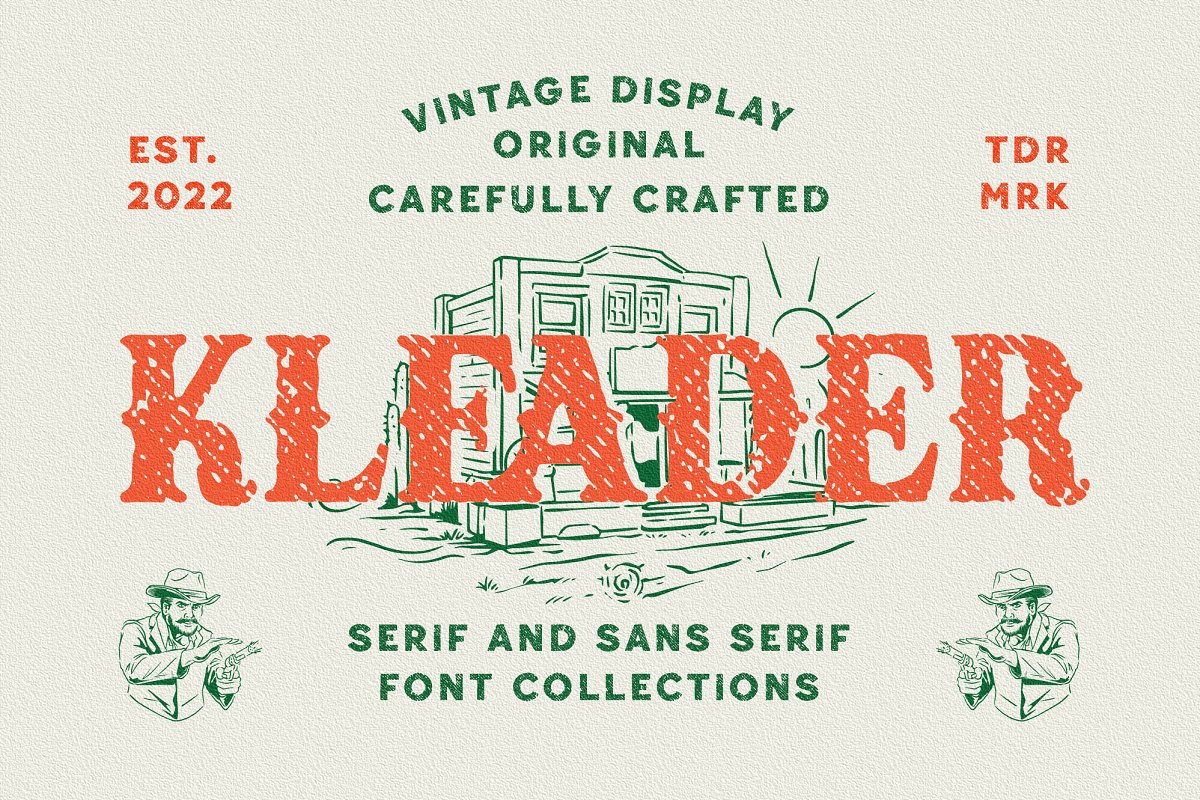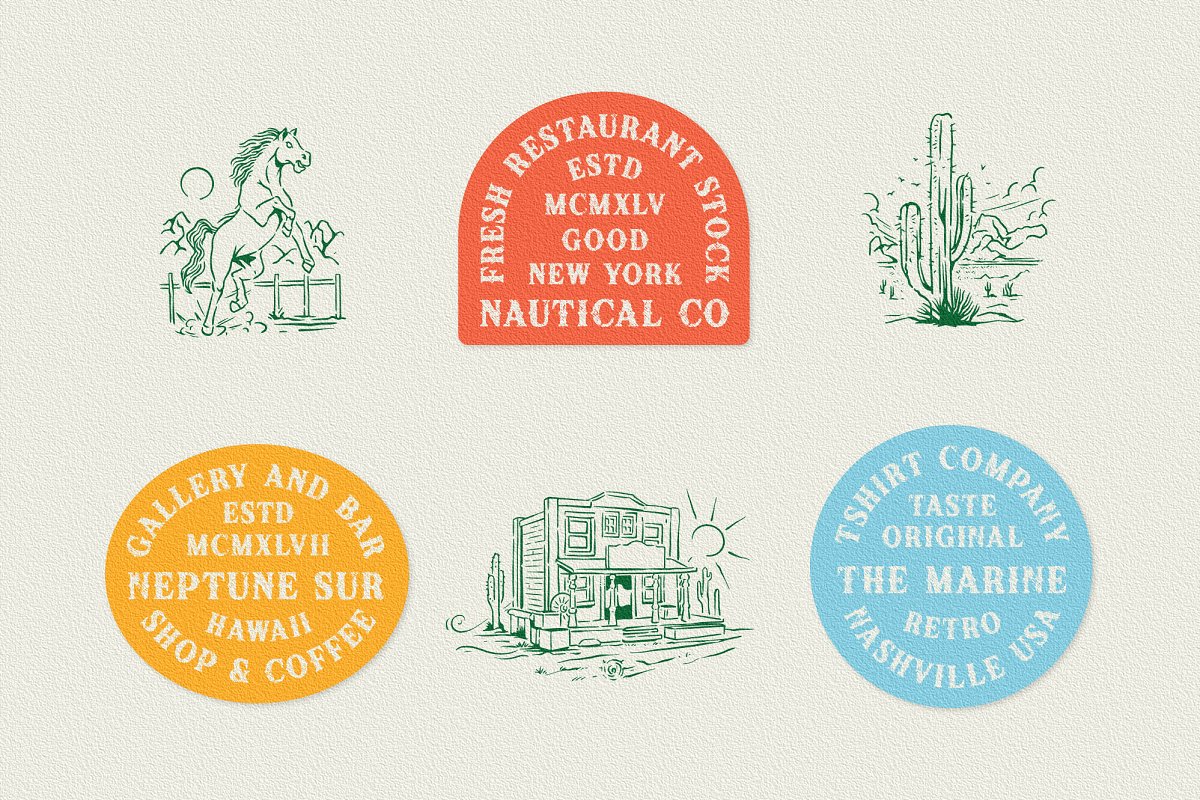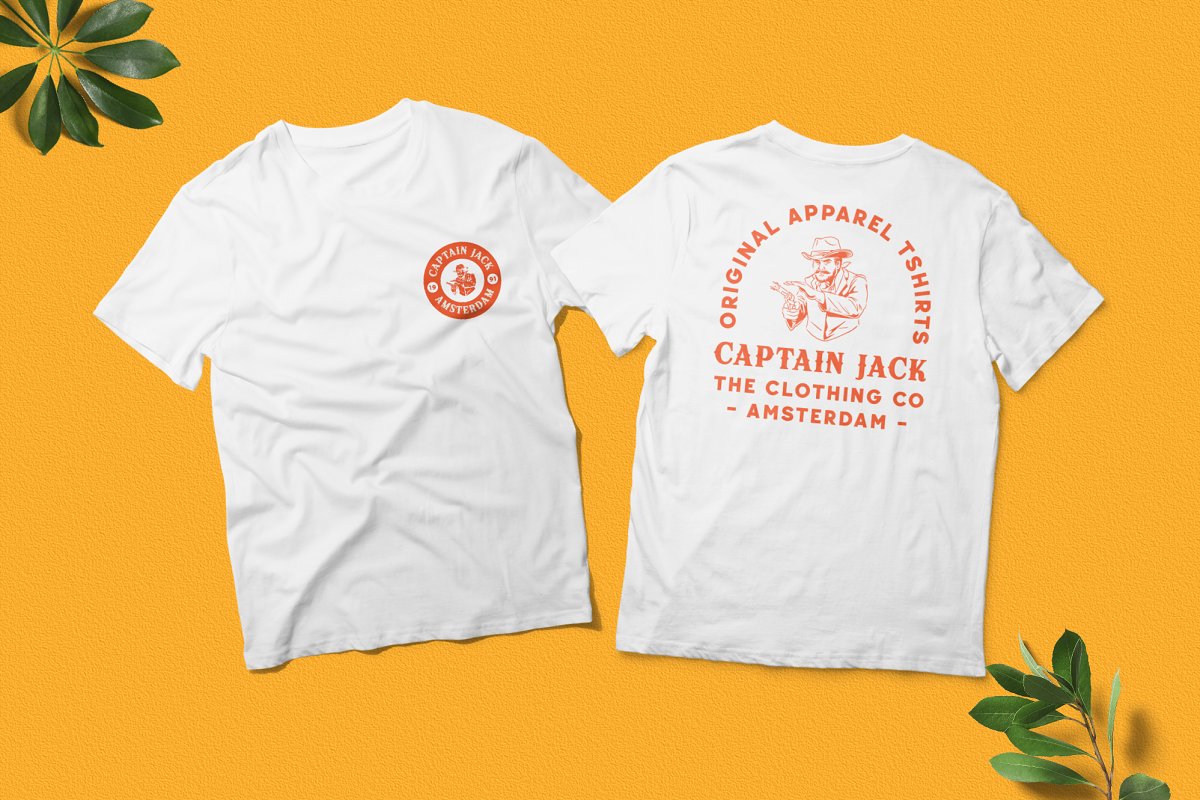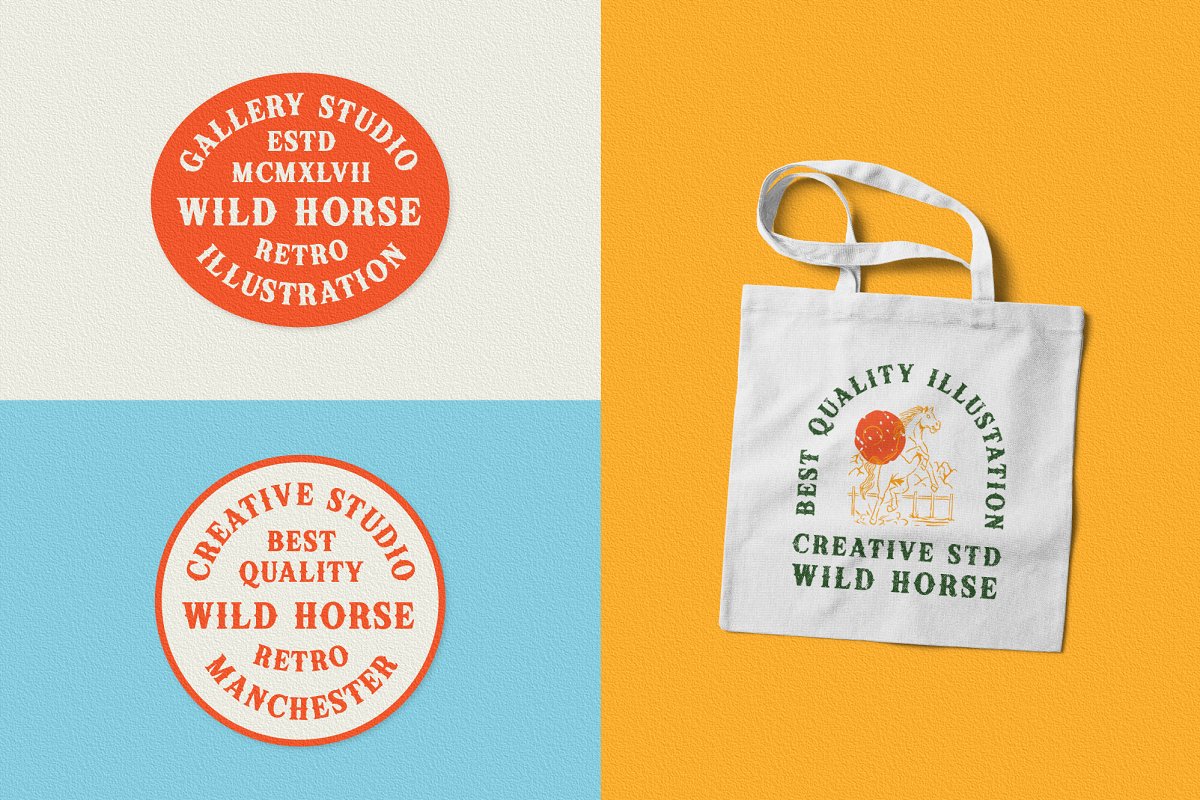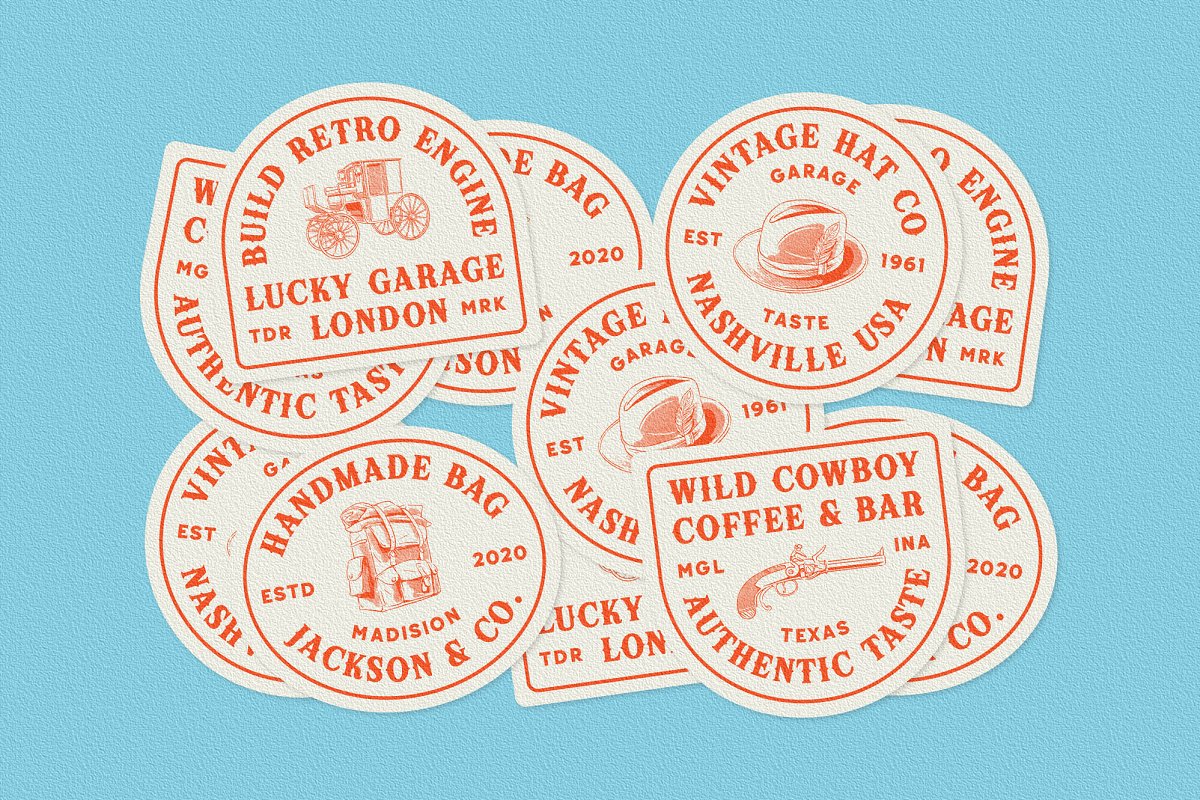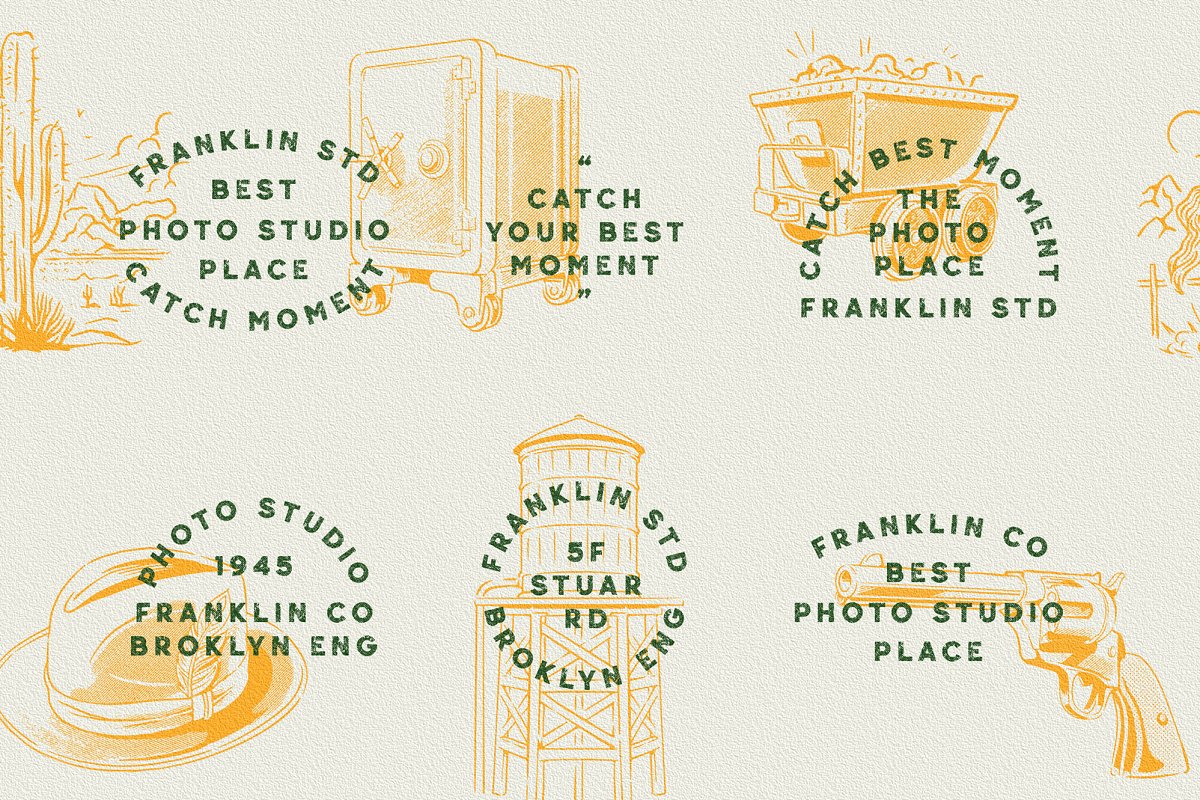
About the Kleader Display Font
The Kleader Font is inspired by authentic typefaces in old posters, These font collections contain serif and sans serif fonts, Every font comes with 3 style typefaces (regular, rough and stamp), Kleader gives more extras 1 pack illustrations, This font includes some ligatures, The Kleader matches apply in some designs such as the logo, poster, label, badge, packaging, t-shirt, branding, quotes and more custom design
Kleader features :3 style typefaces (regular, rough and stamp)All-caps, numeral, symbol and punctuationLigaturesMultilingualPUA EncodedFile format , ttf and , otfKleader includes :7 fonts (serif, sans serif and dingbat)13 hand-drawn illustrations in dingbatIf you have any questions, please contact (edignwntype@gmail